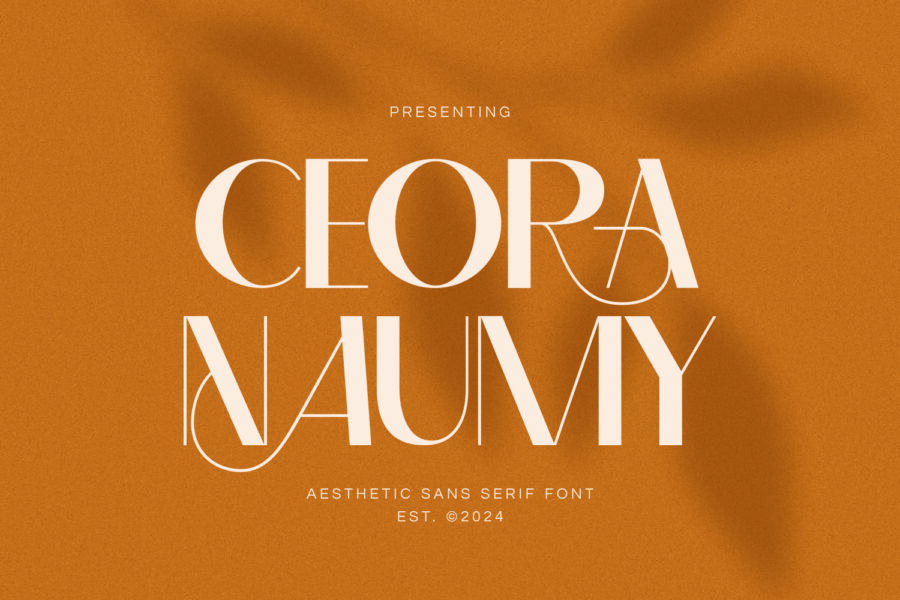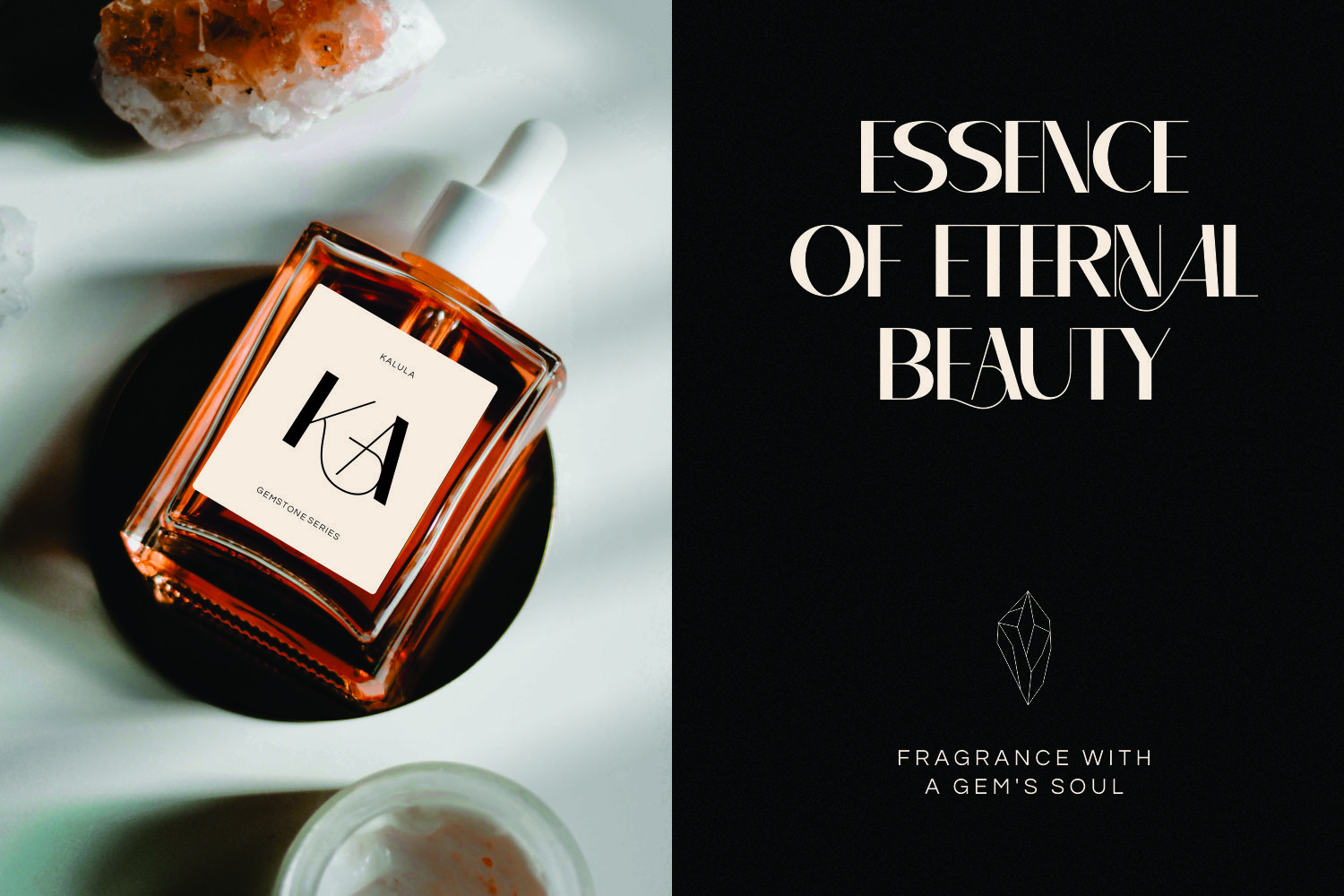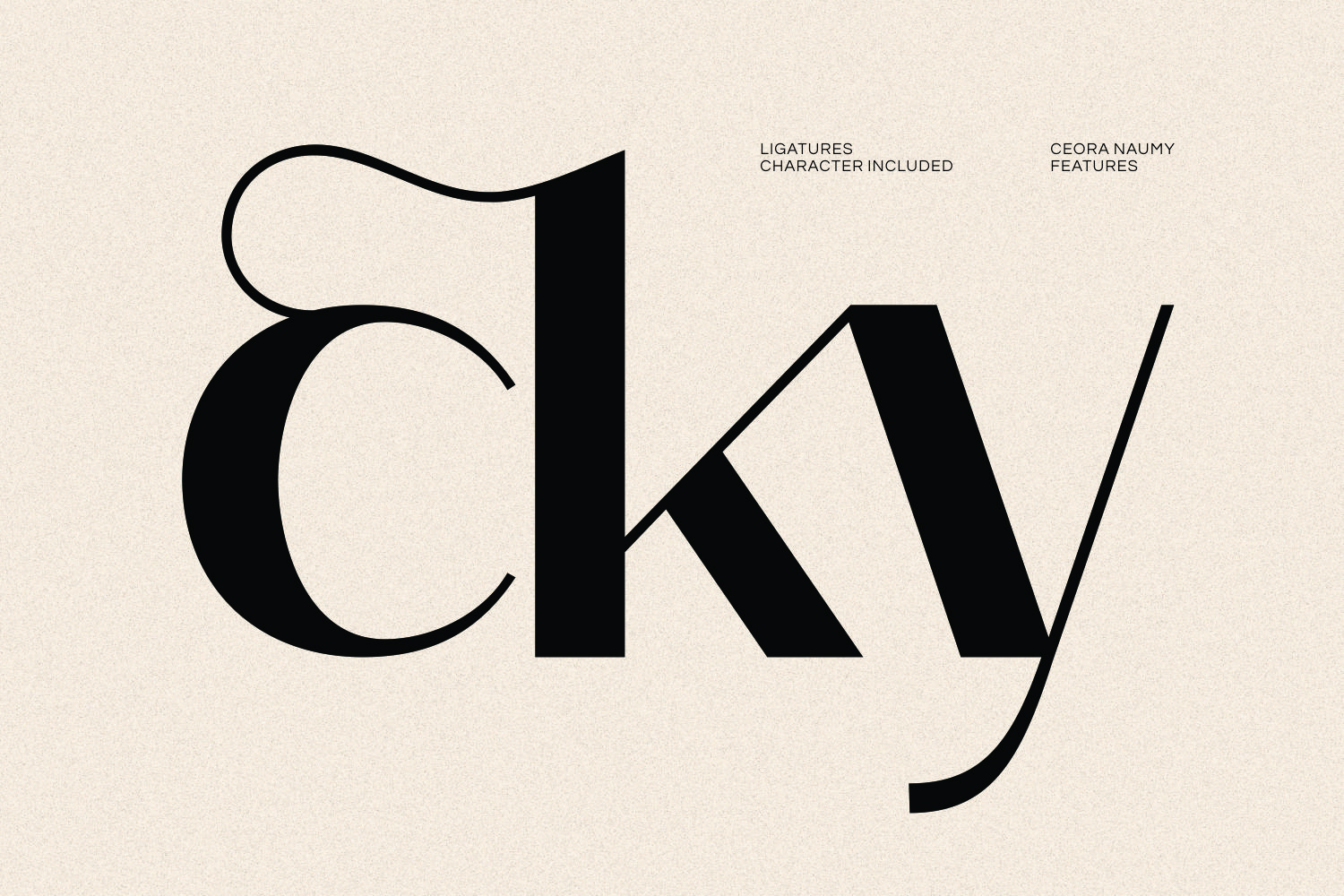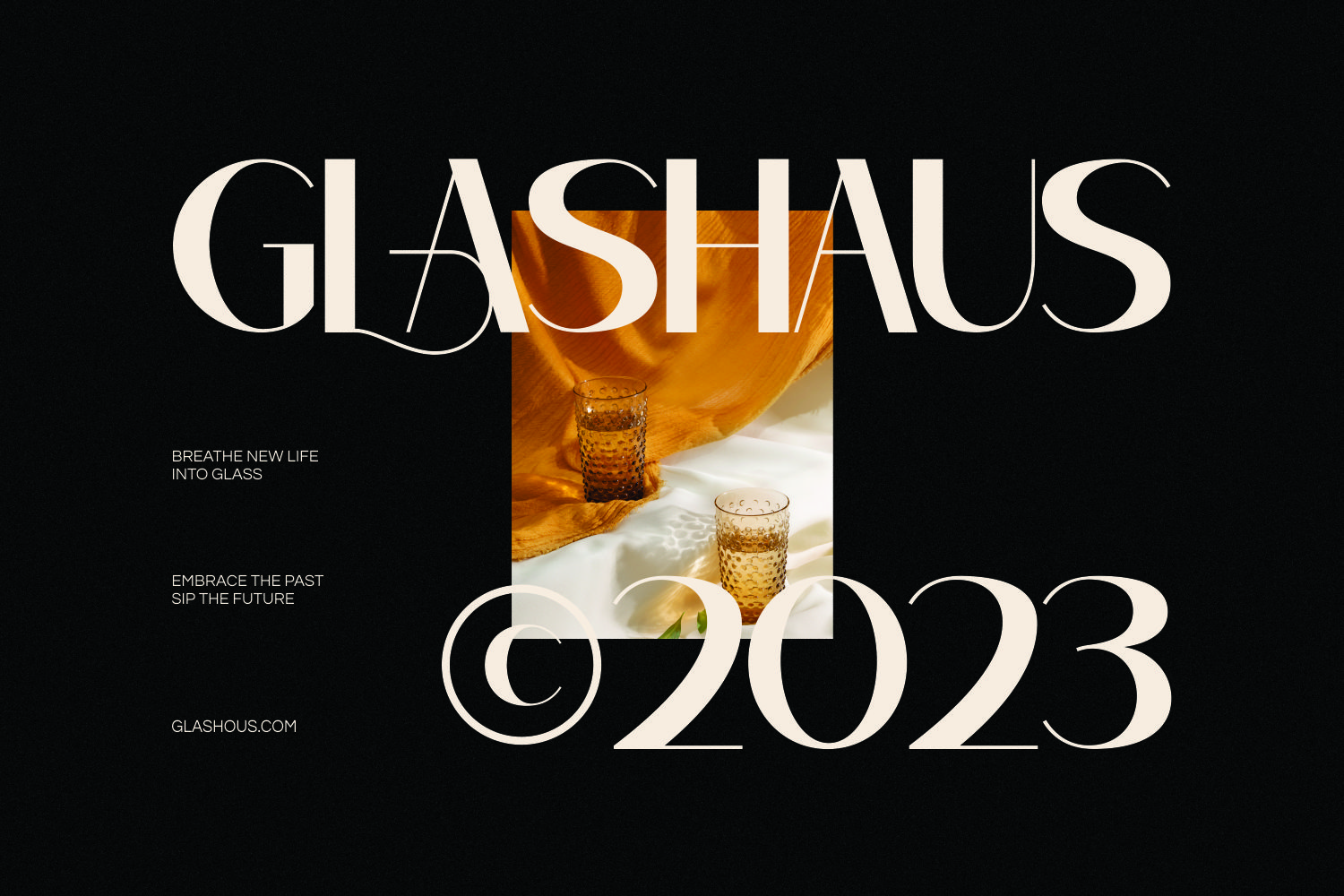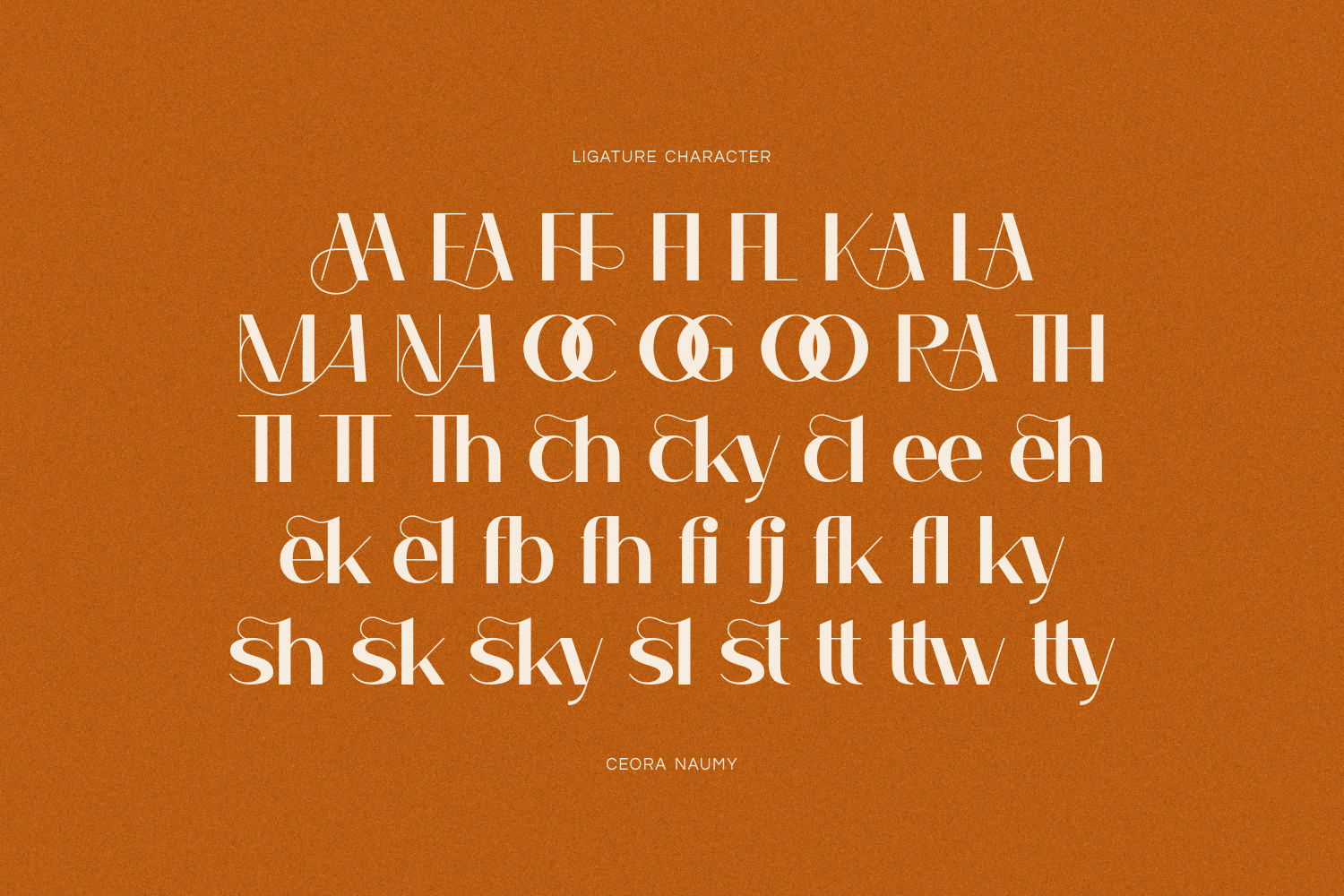
Ceora Naumy is a stylish sans serif display font that merges modern minimalism with high-fashion elegance. Its sleek, elongated forms are enhanced with artistic swashes and sophisticated ligatures, giving each letter a distinctive personality. Perfect for luxury branding, editorial layouts, and premium product packaging, this font offers a refined balance of contemporary geometry and expressive detail, making it stand out in any creative project.
With its wide range of ligatures and alternate characters, Ceora Naumy allows designers to create truly unique typographic compositions. Whether used for bold headlines, chic logo designs, or elegant magazine spreads, it radiates exclusivity and artistry. Its modern charm makes it the ideal choice for fashion houses, beauty brands, and upscale marketing campaigns seeking a distinctive visual voice.
Ceora Naumy